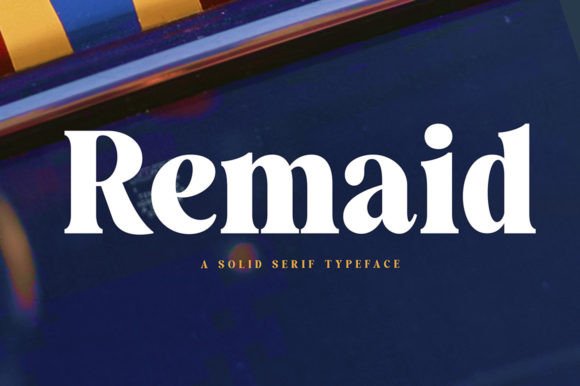
Introducing Remaid Font, the ultimate solution for all your website text needs. Created by the talented team at gatype, this elegant serif typeface is designed to make your brand stand out from the crowd. With its subtle details and modern appeal, Remaid is the go-to choice for anyone seeking to elevate their online presence.
Are you tired of using the same old fonts that just don't capture your brand's essence? Look no further, as Remaid offers a fresh and fashionable take on serif typography. Its versatility allows it to seamlessly blend into various design elements, making it perfect for logos, branding, headlines, apparel, and even bridal themes.
What sets Remaid apart from the rest is its ability to strike the perfect balance between sophistication and creativity. Whether you want to keep it classic or experiment with ornate alternatives, this font has got you covered. Its uppercase and lowercase glyphs offer endless possibilities for adding that extra touch of uniqueness to your projects.
But Remaid isn't just about aesthetics; it's about connecting with your audience on a deeper level. With its captivating and emotive design, this font will evoke powerful emotions and leave a lasting impression on anyone who lays eyes on it. From elegant and refined to bold and daring, Remaid can adapt to any mood or message you want to convey.